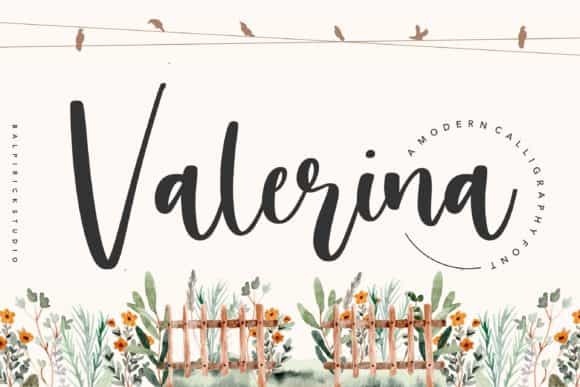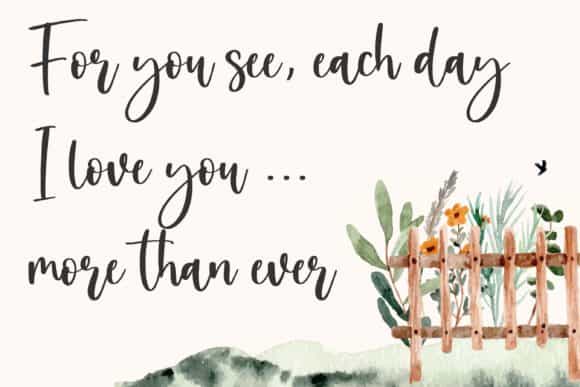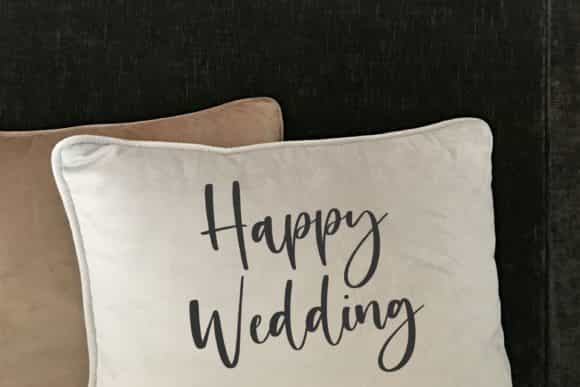
Valerina Font is a calligraphic handwritten script that is modern, elegant and which will enhance your hobbies. Valerina font is suited for various uses more than just practical than even. If you want a name or logotype, page lift poster, stone name video series then this it.